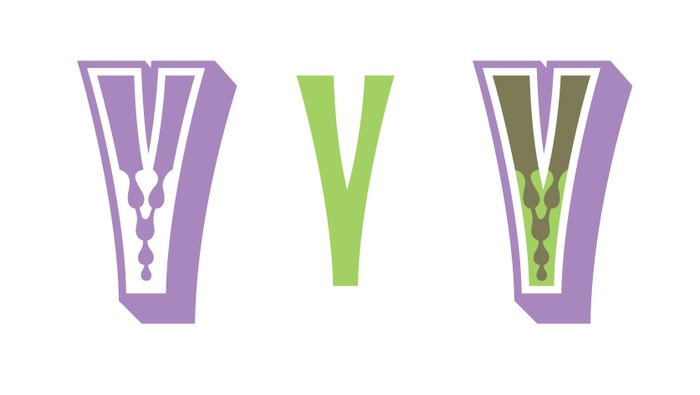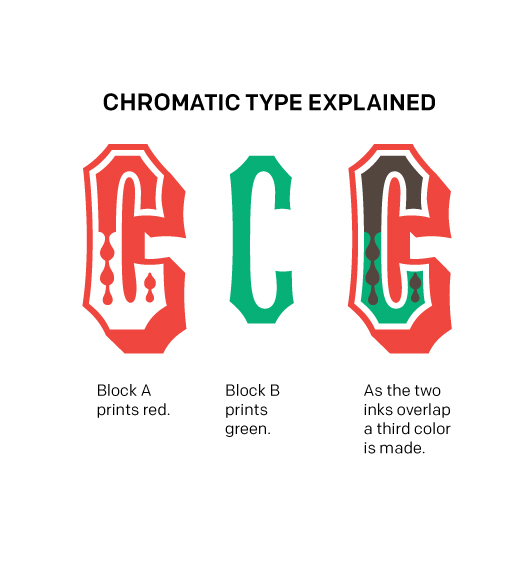
Chromatic Wood Type Explained
In the middle of the American Victorian era (1860s–1870s) a new method of introducing a splash of color to letterpress printing was invented by William H. Page in Connecticut. Chromatic wood type allowed for a circus-like color effect to dance across the printed page. Through the passage of time and loss of actual chromatic fonts, the concept of overprinting one ink on a second ink using separate wood type blocks to create a third color has been lost and/or misunderstood. Here we will showcase how the letterpress printer can unleash a circus of color with Virgin Wood Type's Chromatic Ornate.
Illustration of how chromatic type works